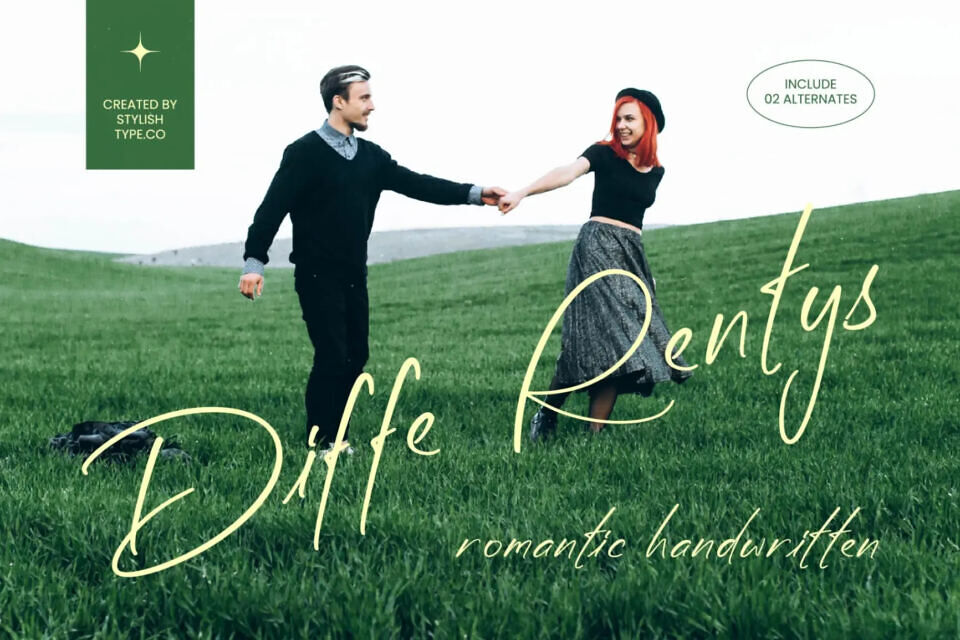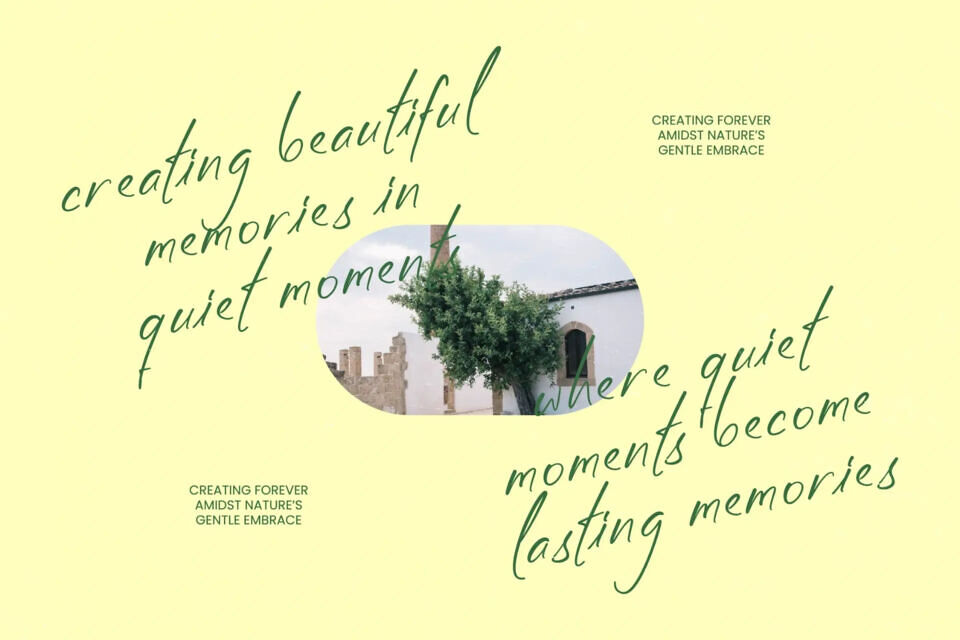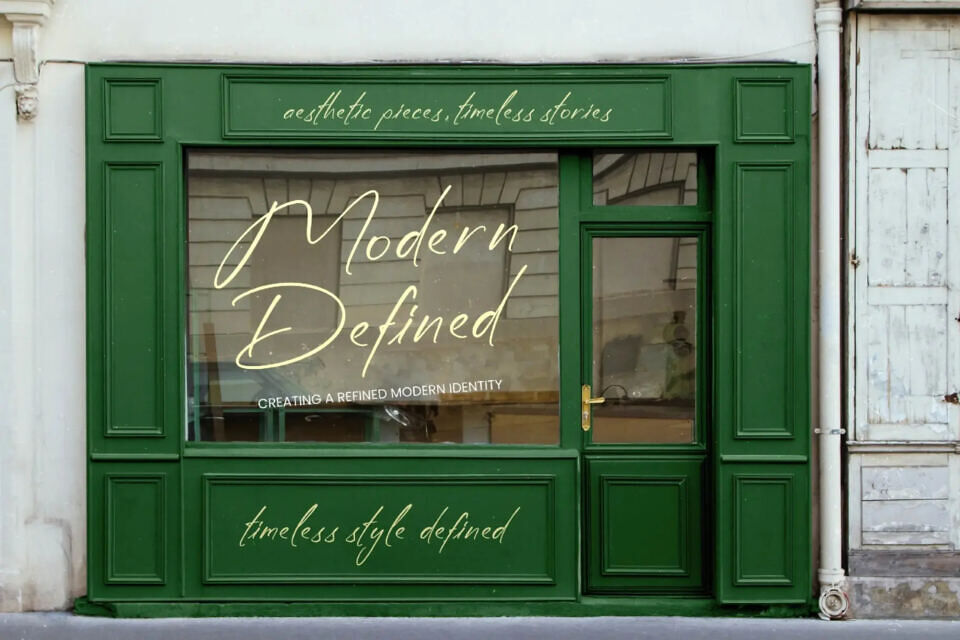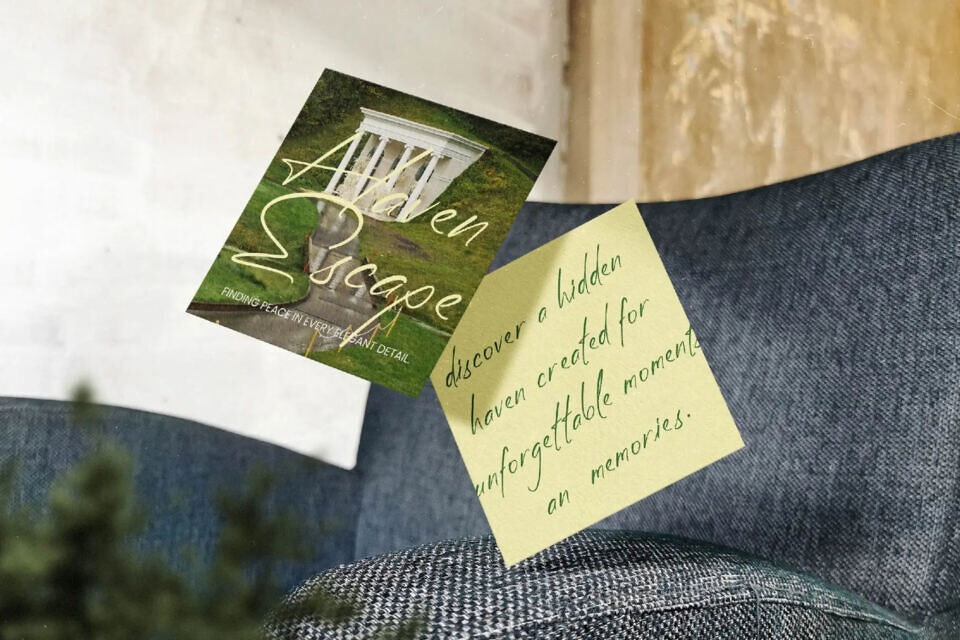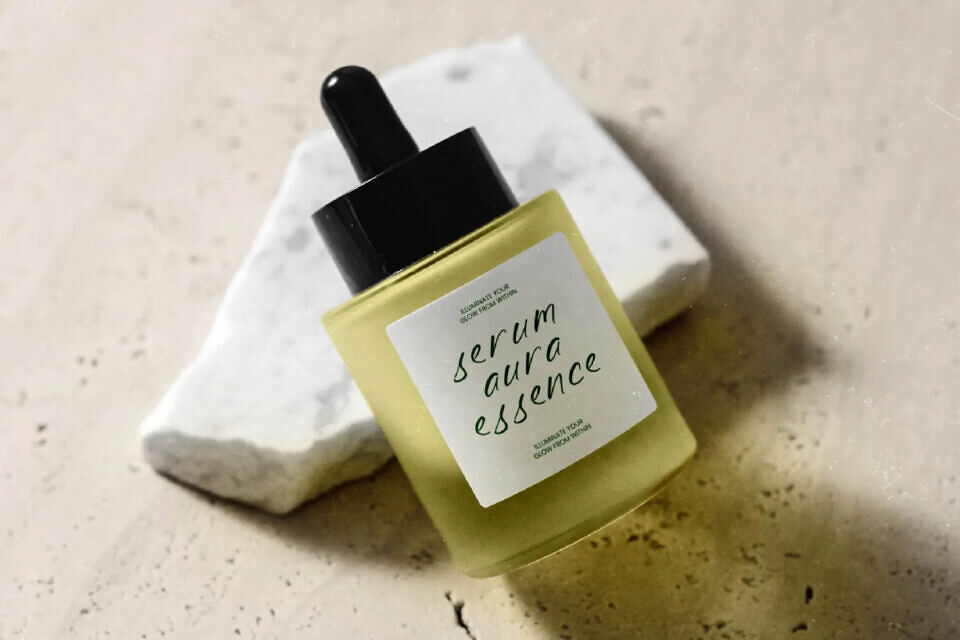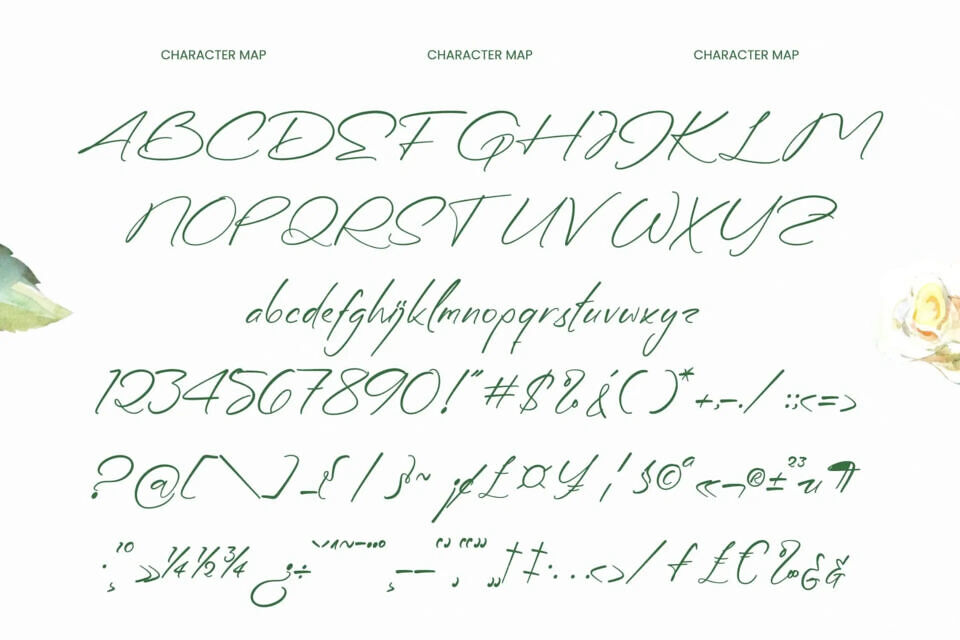
Elevate your design with a sophisticated, handwritten font that exudes elegance. Diffe Rentys offers a natural flow and charm, perfect for conveying intimacy and premium quality.
Its fluid strokes and organic movement add a human touch, making it ideal for high-end projects that require a personal touch, such as luxury branding, packaging, and editorial layouts. This font brings unrivaled sophistication to bespoke invitations, upscale content, and more, ensuring your message is delivered with refinement.